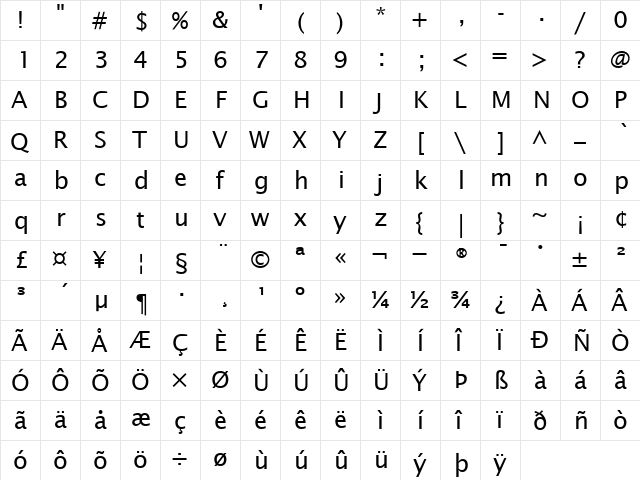
LucidaSansRoman Roman
Design Context for LucidaSansRoman Typeface
LucidaSansRoman offers clean, dependable letterforms without strong stylistic allegiance, making it a practical choice for designers who need flexibility.
Pro Tip: Pair LucidaSansRoman with a font of contrasting weight or personality to build a more expressive typographic hierarchy.